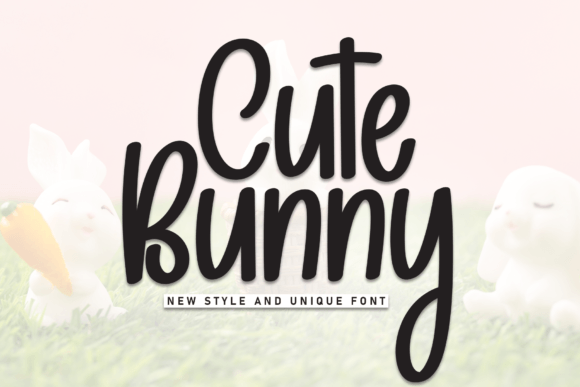
Cute Bunny Font: Add a Sweet Touch to Your Designs
Are you looking for a font that can add a playful and charming touch to your designs? Look no further than the Cute Bunny font! This sweet and friendly handwritten font is perfect for creating wedding invitations, cards, and other designs that require a fun and whimsical feel.
What is Cute Bunny Font?
Cute Bunny is a carefully crafted handwritten font that exudes warmth and friendliness. Its cute and fun design makes it an ideal choice for designers and crafters who want to add a personal touch to their work. The font’s playful and approachable feel makes it perfect for a wide range of design projects, from wedding invitations and cards to social media graphics and more.
Characteristics of Cute Bunny Font
The Cute Bunny font has several characteristics that make it stand out from other fonts. Some of its key features include:
- Handwritten design: The Cute Bunny font has a beautiful handwritten design that gives it a personal and unique feel.
- Sweet and friendly: The font’s sweet and friendly design makes it perfect for creating designs that require a playful and charming touch.
- Cute and fun: The Cute Bunny font is designed to be cute and fun, making it ideal for designs that require a lighthearted and whimsical feel.
- Versatile: The font is versatile and can be used for a wide range of design projects, from wedding invitations and cards to social media graphics and more.
Uses of Cute Bunny Font
The Cute Bunny font is perfect for a wide range of design projects, including:
- Wedding invitations: The font’s sweet and friendly design makes it perfect for creating beautiful and unique wedding invitations.
- Cards: The Cute Bunny font is ideal for creating cards for special occasions, such as birthdays, anniversaries, and more.
- Social media graphics: The font’s playful and approachable feel makes it perfect for creating social media graphics that require a fun and whimsical touch.
- Party decorations: The Cute Bunny font can be used to create beautiful and unique party decorations, such as banners, garlands, and more.
Why Choose Cute Bunny Font?
There are several reasons why you should choose the Cute Bunny font for your design projects. Some of the benefits of using this font include:
- Unique and personal touch: The Cute Bunny font adds a unique and personal touch to your designs, making them stand out from the crowd.
- Easy to read: The font is easy to read, making it perfect for designs that require a clear and concise message.
- Versatile: The Cute Bunny font is versatile and can be used for a wide range of design projects.
- Fun and playful: The font’s fun and playful design makes it perfect for designs that require a lighthearted and whimsical feel.
Tips for Using Cute Bunny Font
Here are some tips for using the Cute Bunny font in your design projects:
- Use it for headings and titles: The Cute Bunny font is perfect for headings and titles, as it adds a playful and charming touch to your designs.
- Pair it with other fonts: The font can be paired with other fonts to create a unique and interesting design.
- Use it for body text: The Cute Bunny font can be used for body text, but it’s recommended to use it for short paragraphs or sentences.
- Experiment with colors and textures: The font looks great in different colors and textures, so feel free to experiment and find the perfect combination for your design.
In conclusion, the Cute Bunny font is a sweet and friendly handwritten font that’s perfect for adding a playful and charming touch to your designs. Its cute and fun design makes it ideal for wedding invitations, cards, and other designs that require a fun and whimsical feel. With its versatility, ease of use, and unique design, the Cute Bunny font is a great choice for designers and crafters who want to add a personal touch to their work.